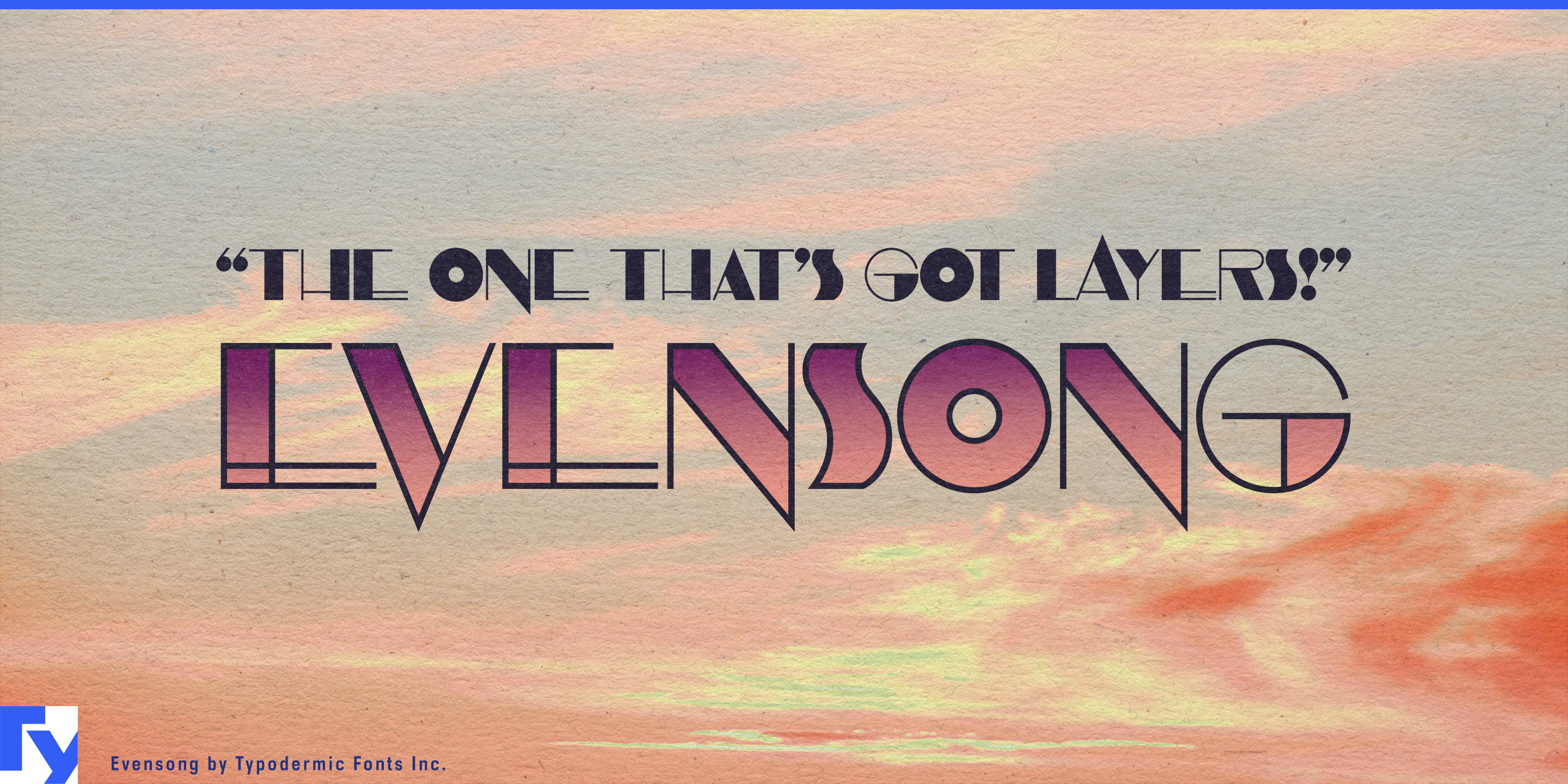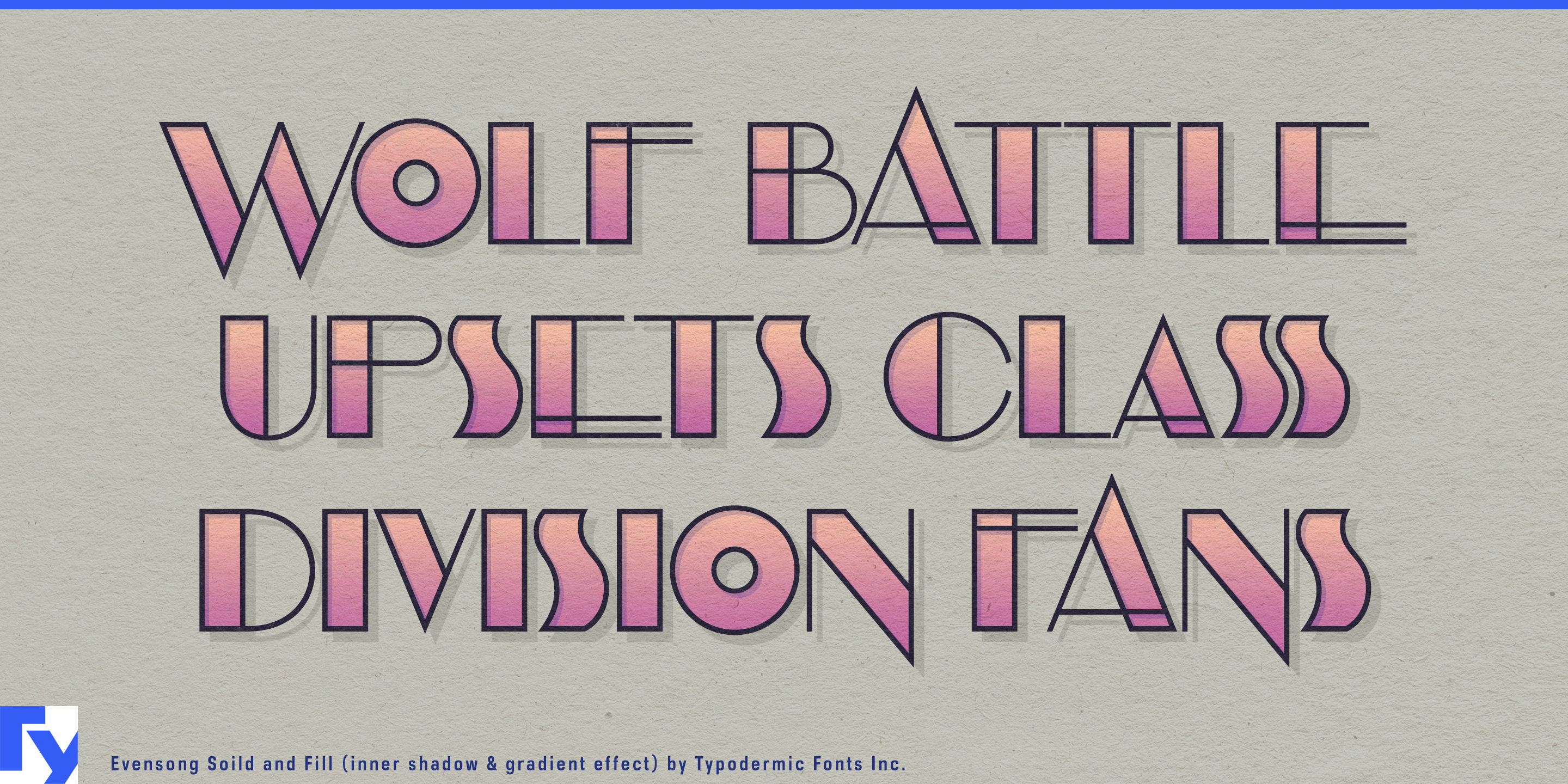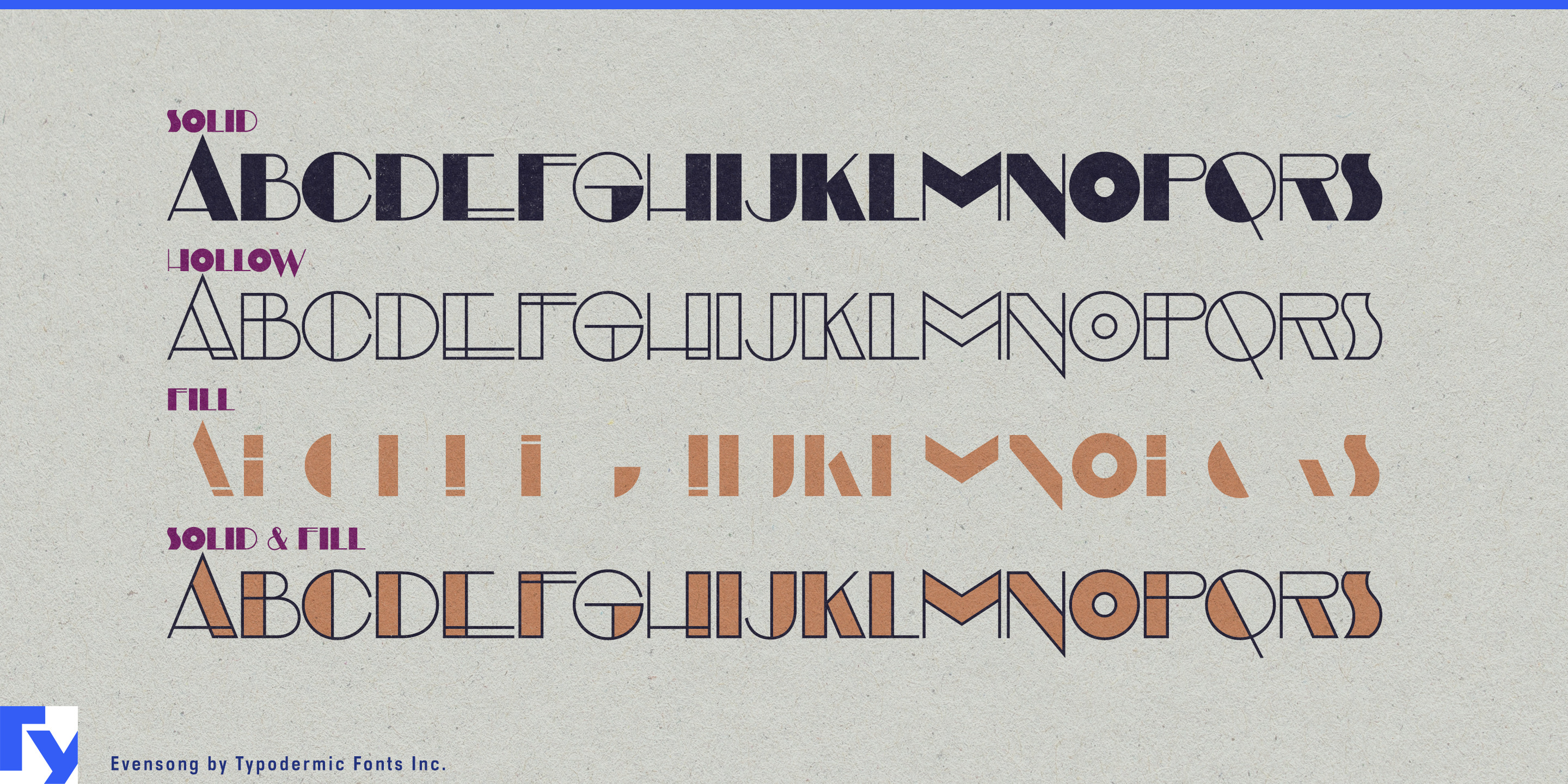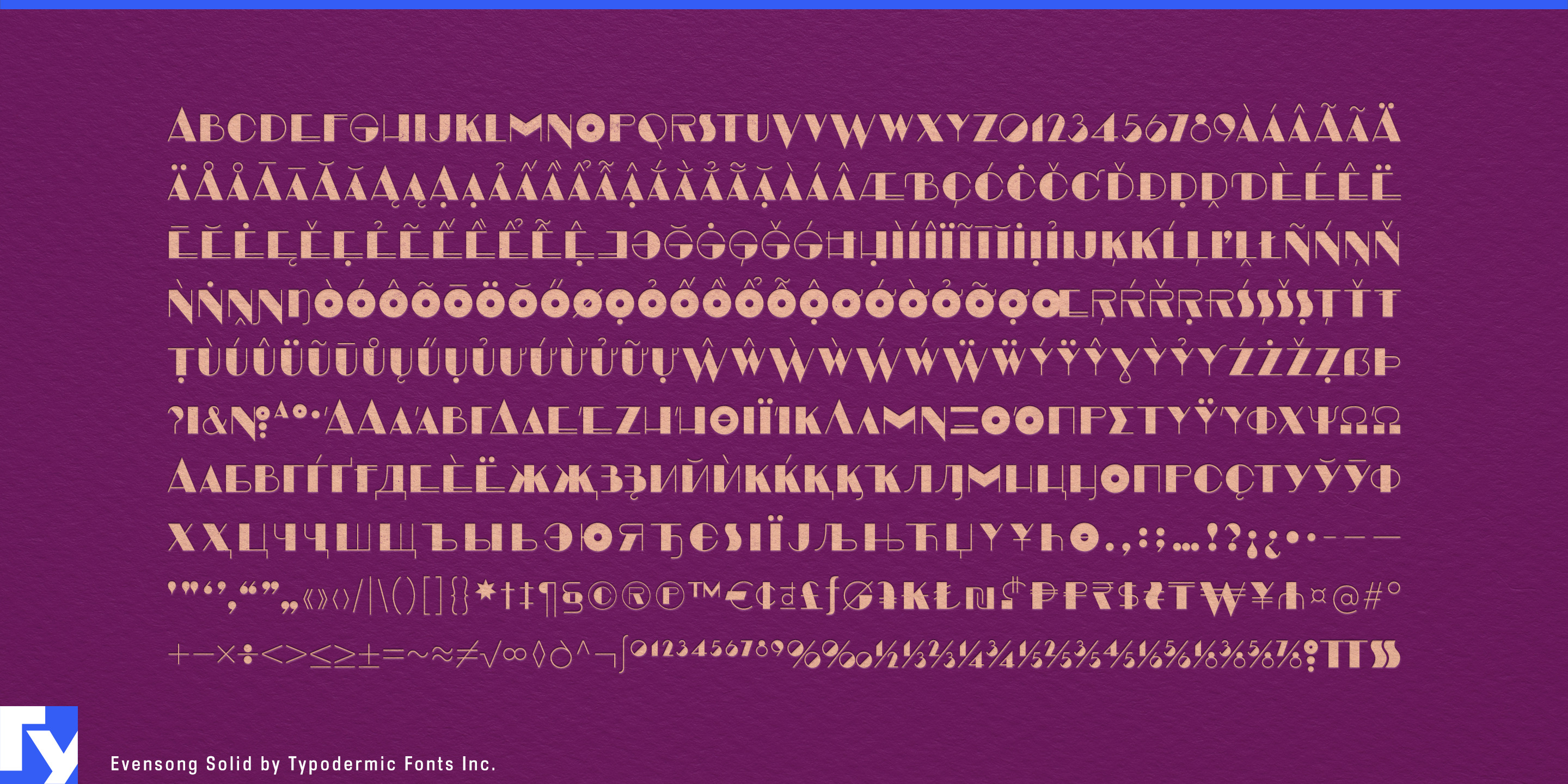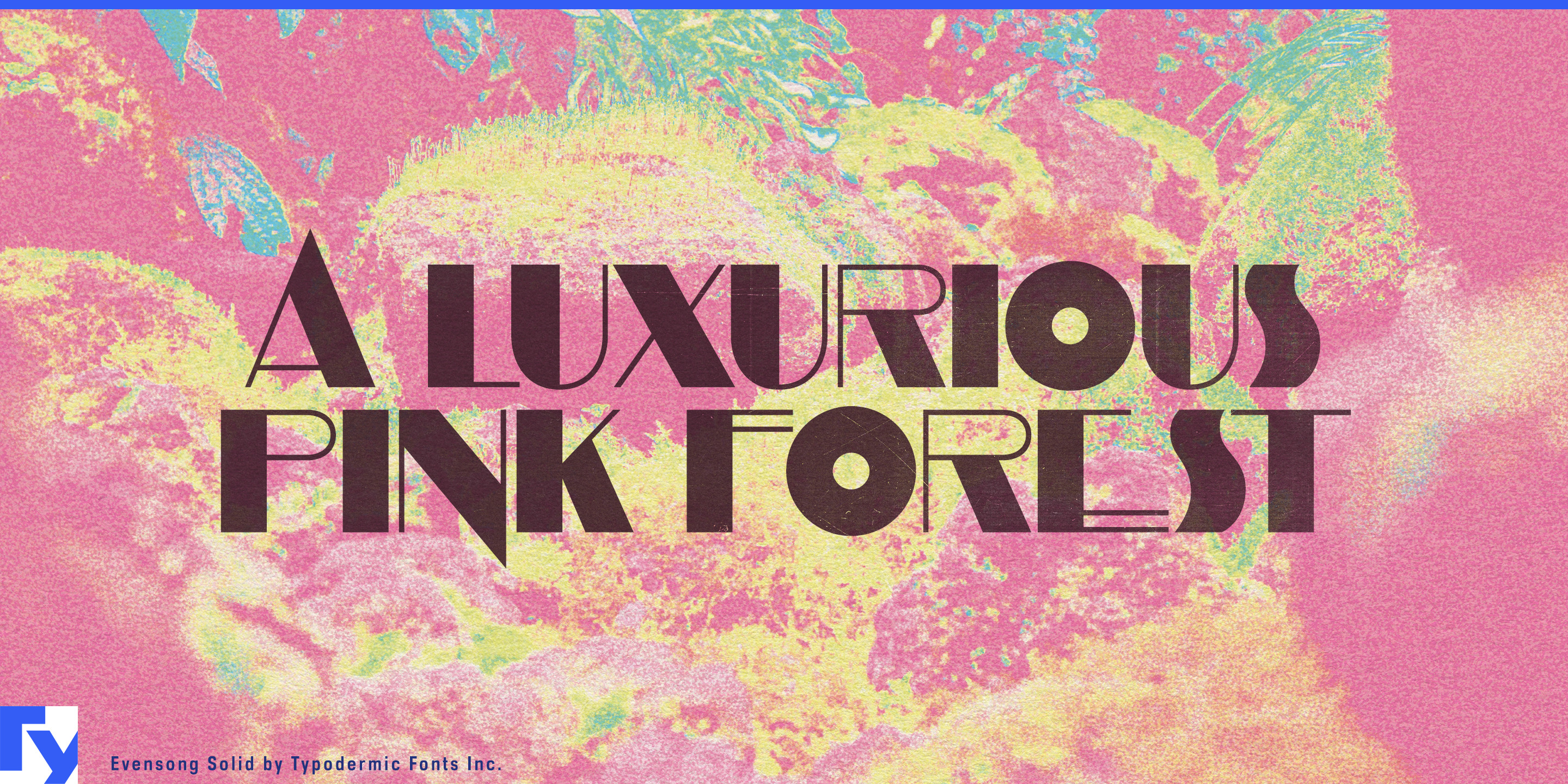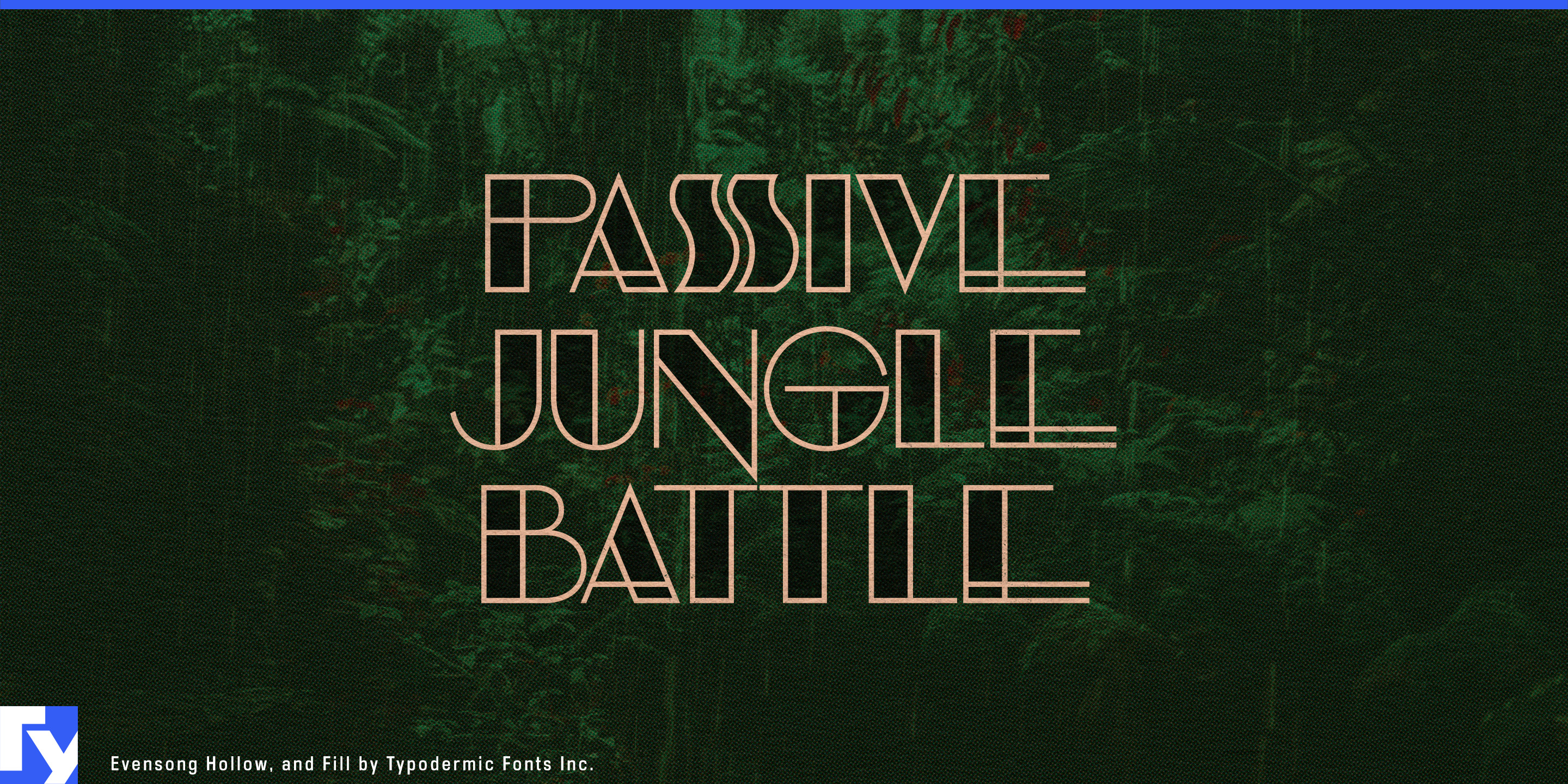
Evensong
Evensong takes the geometry of Art Deco and pushes it to dazzling extremes. Its design thrives on contrast—hairline strokes clash with bold geometric masses, creating letterforms that feel like a skyline built on elegance and audacity. Every detail subverts expectation: an ‘O’ wrapped evenly in weight, a ‘G’ leaning into its heavy side, and strokes that cut through solids to add tension and spark intrigue.
With three coordinated styles, Evensong is built for staging. Solid delivers commanding, monolithic statements. Hollow opens things up with a structural, architectural feel. Add the Fill layer, and suddenly you’re in full color-play territory—think metallic gradients, patterned overlays, or experimental textures that let your typography shift moods with ease.
Ideal for magazine mastheads, luxury packaging, theatrical posters, or boutique signage, Evensong isn’t just type; it’s spectacle. A font designed to be layered, spotlighted, and remembered, it performs with all the flair of a headline act.